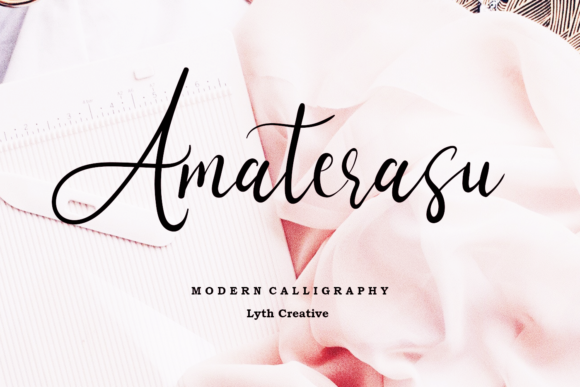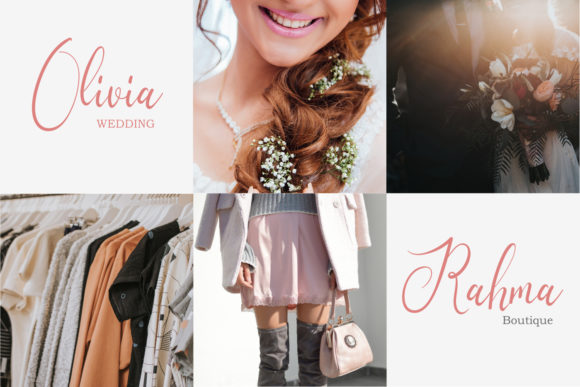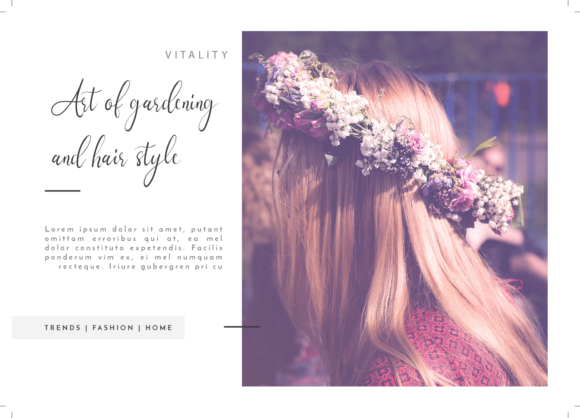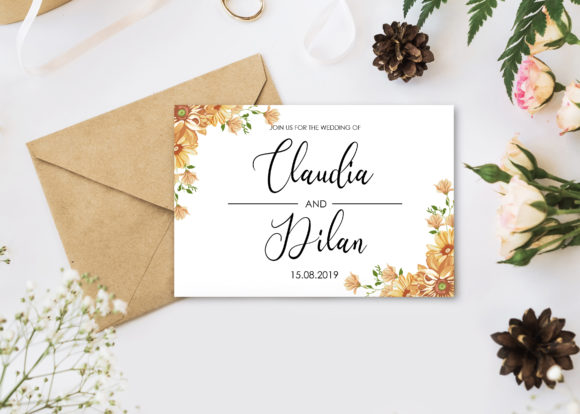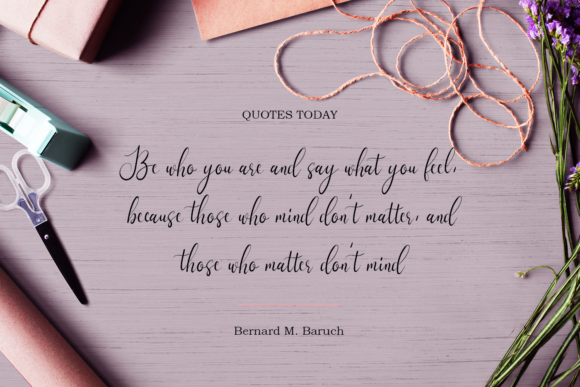
Amaterasu Font
About Amaterasu Font
The Amaterasu is a beautiful calligraphy font with an unique style. It includes elegant movements and is perfect for adding some grace to your designs.